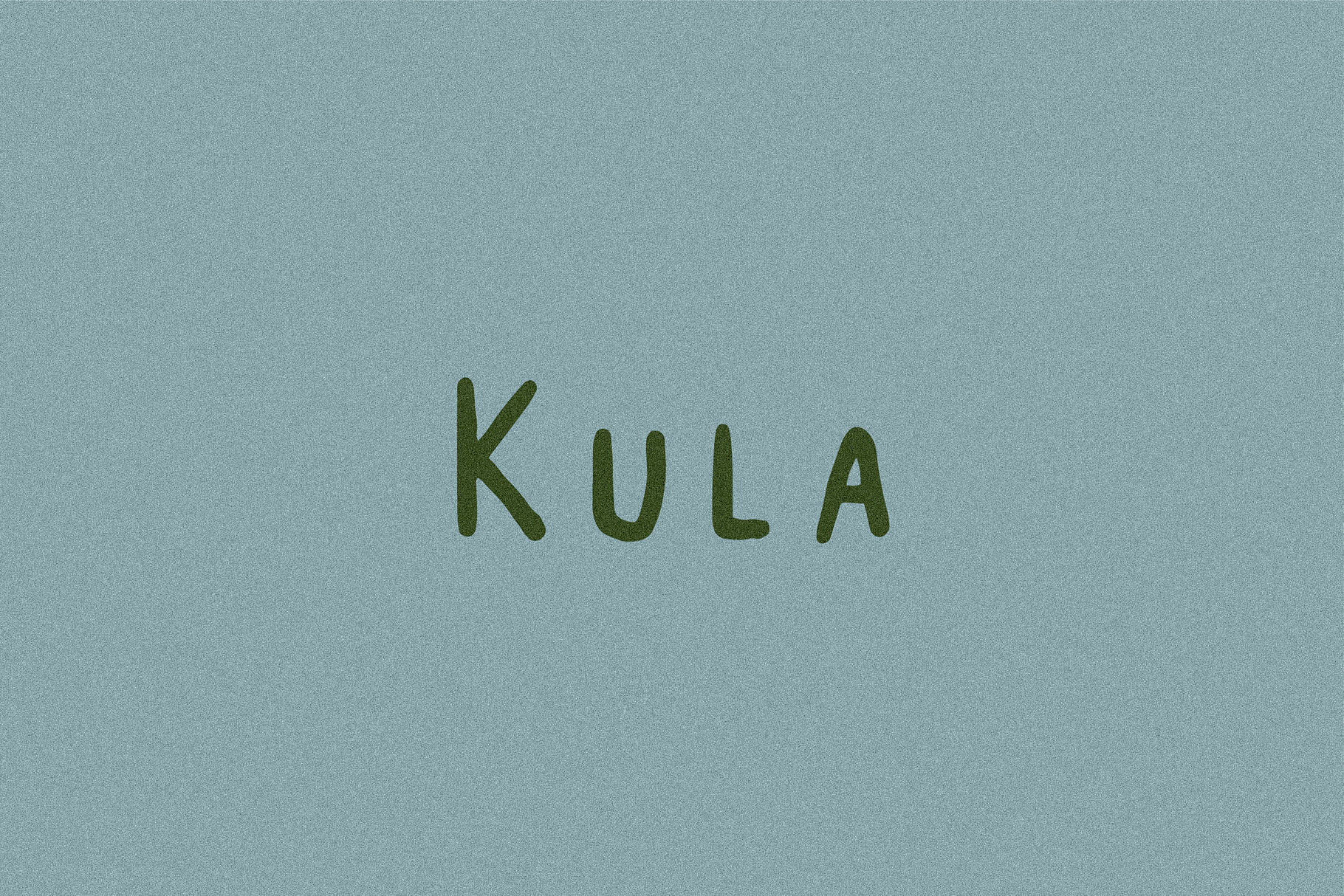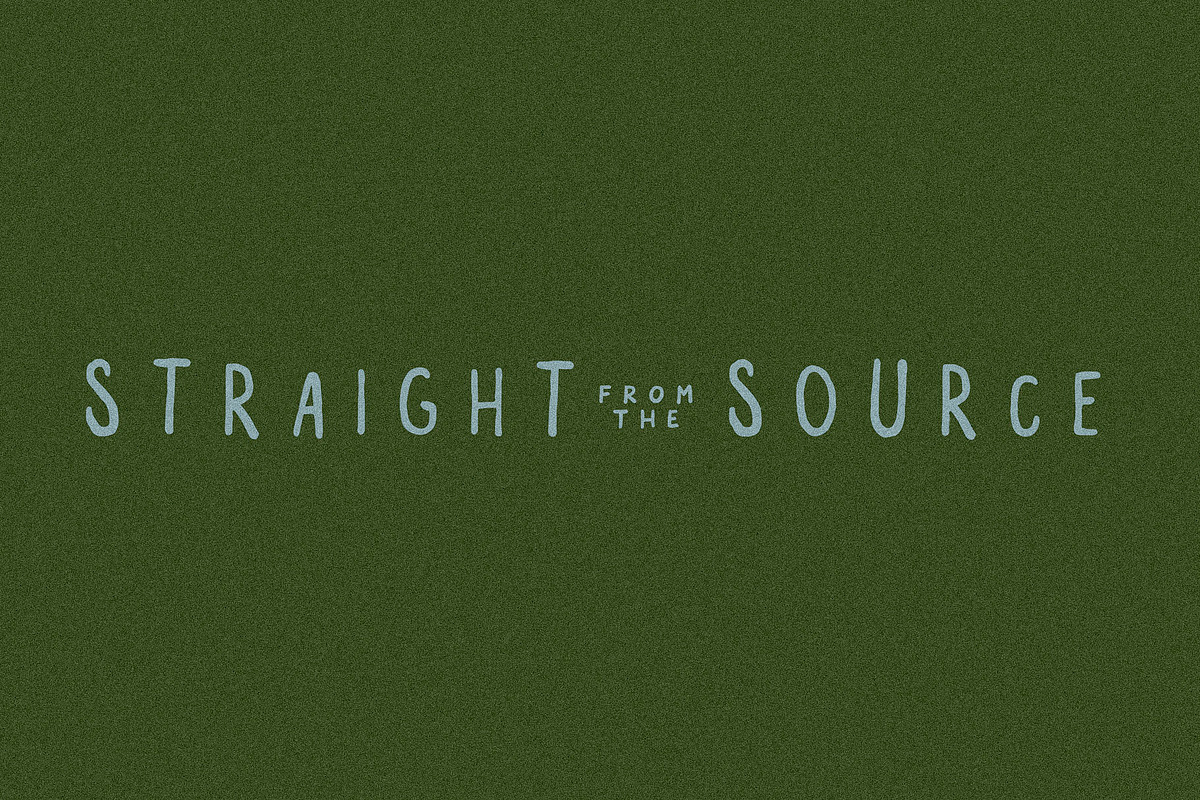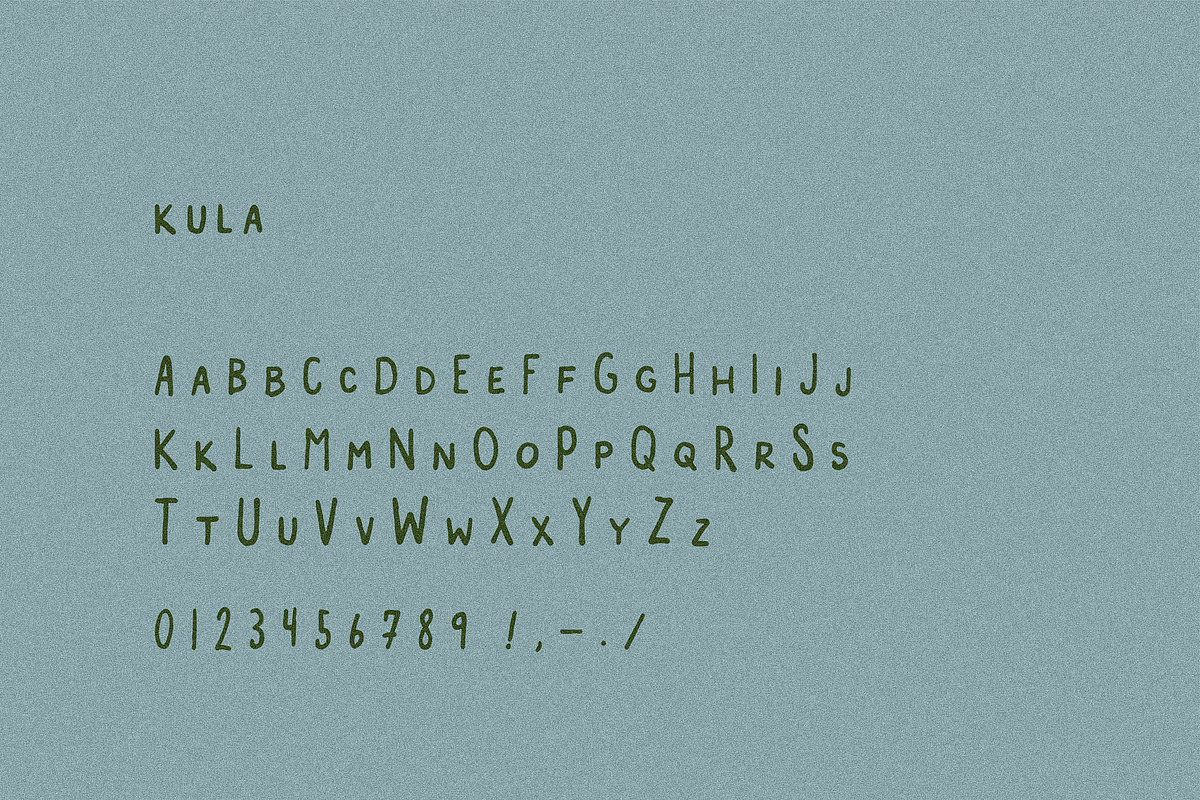
Kula I A Tropical Display Font
Kula is laid-back, slightly weird, and pretty easy to get along with.
You’ll get two full sets — caps and small caps — both with a slightly imperfect, natural feel. It’s expressive without getting chaotic, and works anywhere that could use some personality.